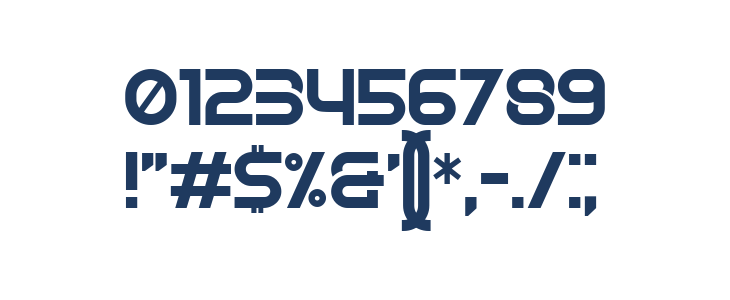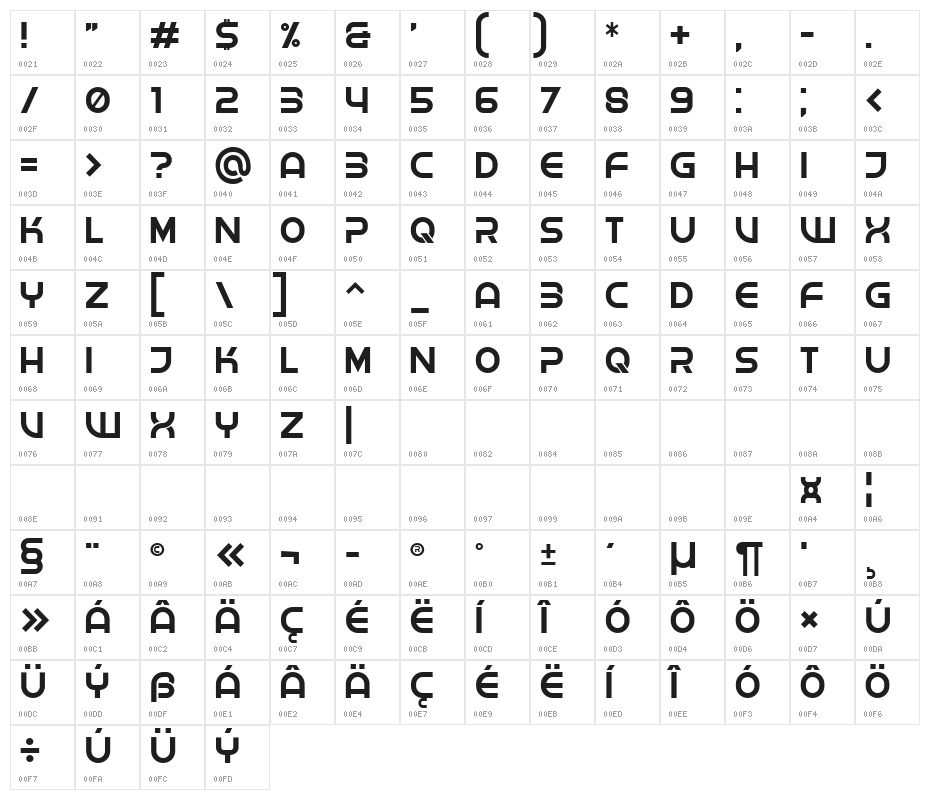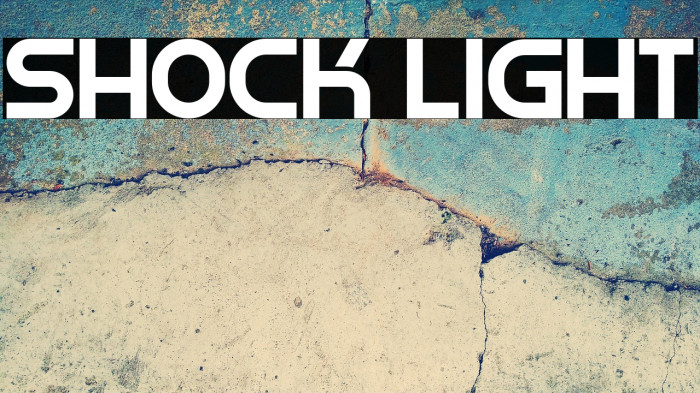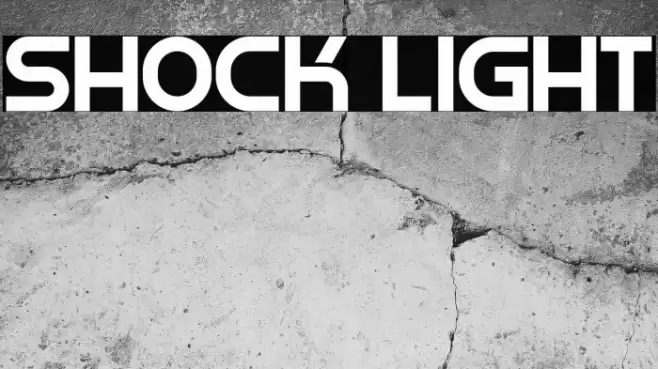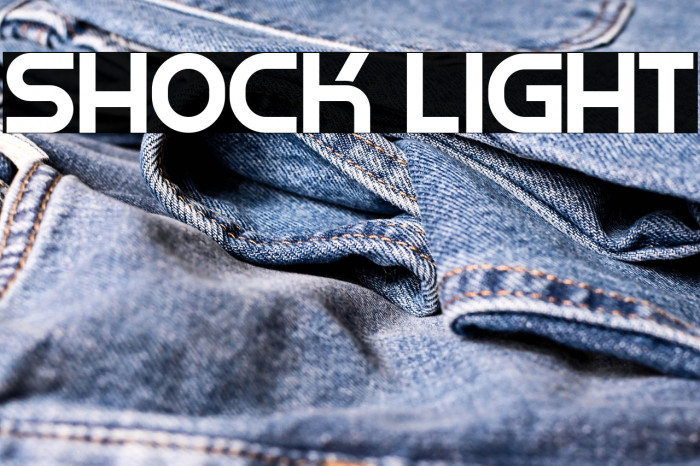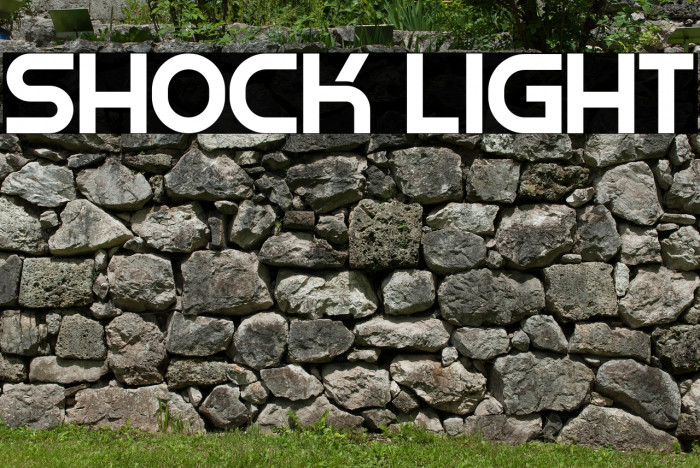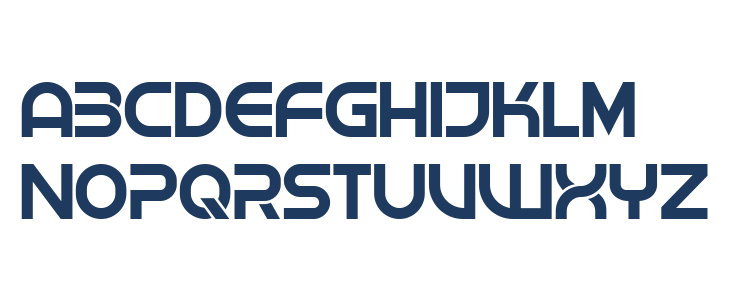
Shock Light Font
Shock Light Description
This font features a bold, futuristic design with geometric shapes and sharp angles. The characters are constructed with a consistent stroke width, giving it a uniform appearance. The uppercase letters are particularly striking, with unique cutouts and angular forms that create a sense of movement and modernity. The numerals and special characters maintain this aesthetic, ensuring a cohesive look across all text. The font's style is ideal for projects that require a modern and edgy feel, such as technology branding or sci-fi themed designs.